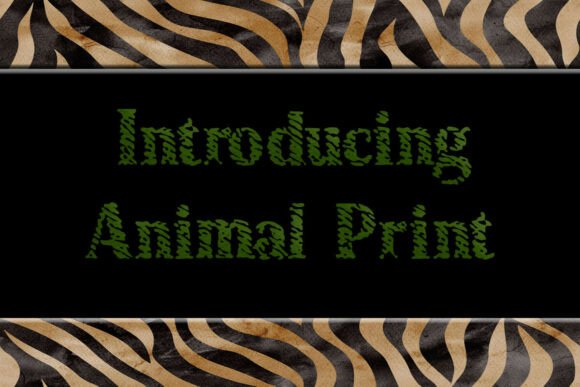
Unleash Your Creativity with the Animal Print Font
Have you ever been rummaging through your craft supplies, searching for the perfect font to give your DIY project that extra oomph? You know the moment – when the words flow, and the ideas start pouring in. It’s in these moments that we need a font that can keep up with our creativity, something that can elevate our designs and make them truly stand out.
Enter the Animal Print Font, a beautifully crafted typeface designed to amplify your creative expressions. With its elegant style and versatility, this font is perfect for a wide range of applications, from graphic design to crafting and beyond. Whether you’re a professional designer or a DIY enthusiast, the Animal Print Font is an indispensable asset that will help you bring your ideas to life.
Animal Print Font Key Features
- Font Family: Offers a range of animal-inspired fonts, including leopard, zebra, and tiger designs.
- Unique Characteristics: Distinctive animal patterns and textures add a creative touch to designs, making it ideal for fashion, lifestyle, and entertainment brands.
Animal Print Font Review
Overall, I’d say the Animal Print Font is an interesting and quirky addition to any designer’s toolkit. Here’s what I think:
- Unique aesthetic: The font’s animal print design is definitely eye-catching and sure to grab attention.
- Customizable: The font comes in a range of different animal prints, allowing users to mix and match to suit their needs.
- Good for bold statements: The font is perfect for making bold statements or adding a touch of whimsy to a design.
- Limited legibility: In certain situations, the font’s busy design can make it difficult to read.
- Not suitable for all audiences: The font’s animal print design may not be to everyone’s taste, and could potentially be seen as childish or unprofessional.
- May not work well in small sizes: The font’s intricate design can make it difficult to read in small sizes, which may limit its use in certain applications.
Overall, I think the Animal Print Font is a fun and creative tool that can add a touch of personality to a design. However, it may not be suitable for all projects or audiences.
Tips for Getting the Most Out of Animal Print Font
1. Use the font in moderation to avoid overwhelming the design.
2. Pair the font with solid colors or simple textures for maximum impact.
3. Experiment with different font sizes and styles to create visual interest.
The Animal Print Font is ideal for:
1. Children’s book illustrations and designs.
2. Wildlife-themed branding and marketing materials.
3. Fun and playful invitations and event materials.
Alternative Typography Options for Designers
1. Cursive Font
A cursive font is a flowing script font that can add a touch of elegance and sophistication to your design. It’s ideal for use in headings, titles, and other text elements where a more refined look is desired. In comparison to Animal Print Font, a cursive font is more polished and less playful, making it a better choice for formal or luxury brands.
2. Script Font
A script font is similar to a cursive font but has a more rustic or handwritten feel. It’s perfect for use in designs where you want to convey a sense of creativity and informality. Compared to Animal Print Font, a script font is more relaxed and casual, making it a better choice for brands that want to appear approachable and friendly.
3. Handwritten Font
A handwritten font is a digital representation of handwritten text that can add a personal touch to your design. It’s ideal for use in designs where you want to convey a sense of uniqueness and individuality. In comparison to Animal Print Font, a handwritten font is more personal and less attention-seeking, making it a better choice for brands that want to appear authentic and down-to-earth.